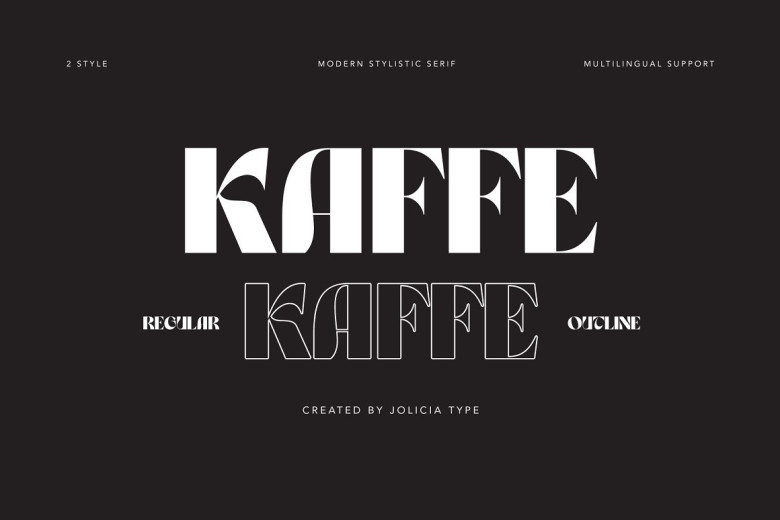
Kaffe Font
Kaffe font draws inspiration from retro and psychedelic types, offering both bold and combination outlines to make this font look trendy and stand out. Perfect for use in logos, branding campaigns, digital marketing strategies, etc.
Kaffe Display Font